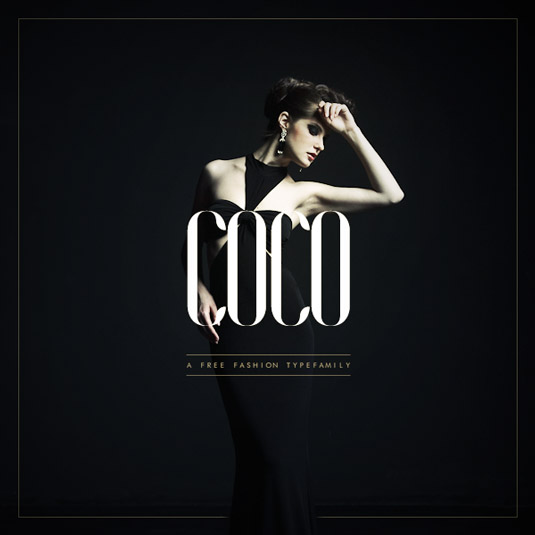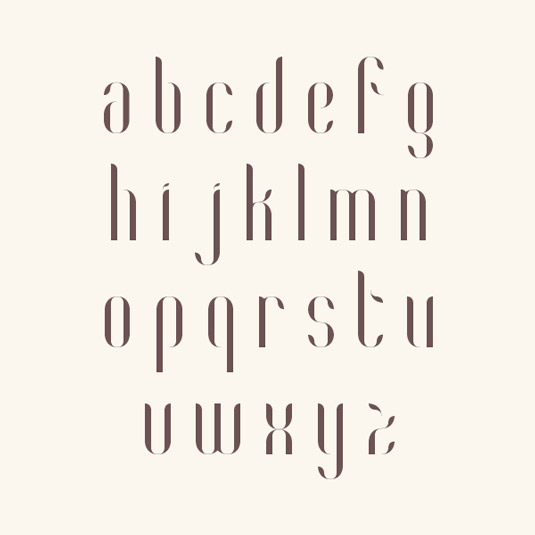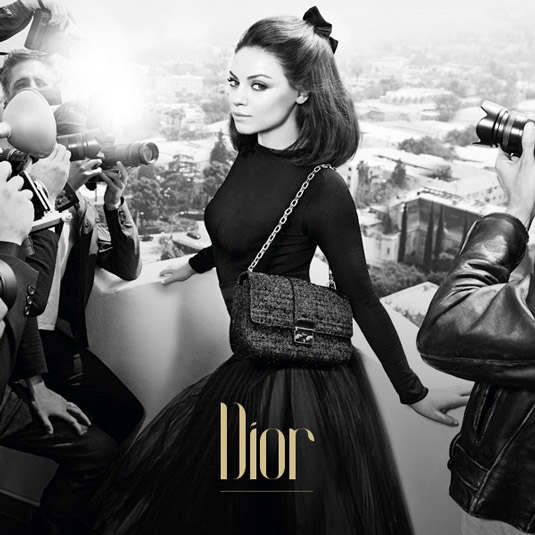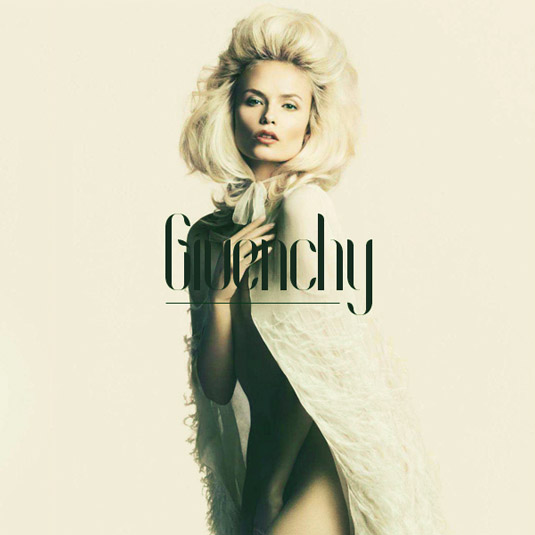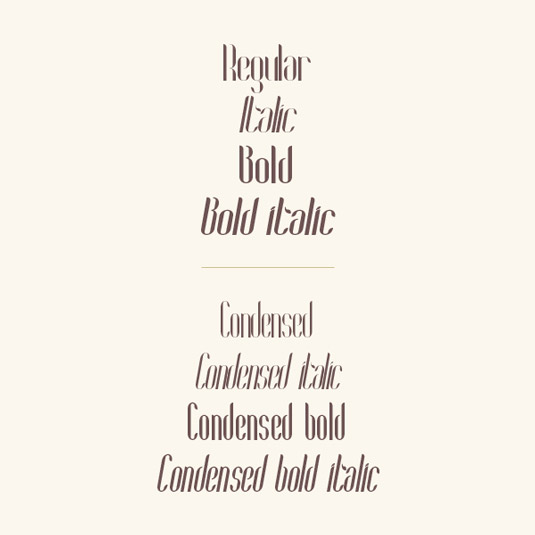
Font of the day: Coco
Coco by Hendrick Rolandez
Today's font of choice is Coco by French graphic designer and junior art director Hendrick Rolandez. The fashion-oriented type family was created back in 2012, the design now boasting eight versions of the font with more 209 glyphs for each.
"Coco is a sans-serif type family declined in a set of 8 fonts with regular, italic, bold, bold-italic, condensed, condensed-italic, condensed bold & condensed bold-italic, which can be used for several types of projects, from digital to print," explains Rolandez. "Each font has more than 209 glyphs including small letters, capitals, numbers & special glyphs and punctuation. This family is for all type lovers who would like to emphasize a fashion project."